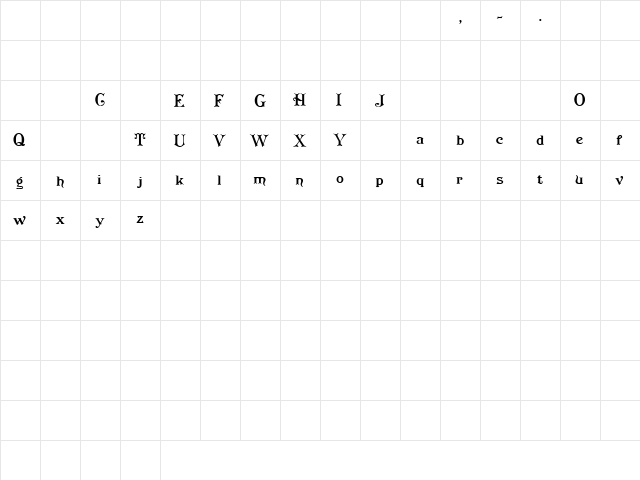
redraw3 Regular
Design Context for redraw3 Typeface
redraw3 offers clean, dependable letterforms without strong stylistic allegiance, making it a practical choice for designers who need flexibility.